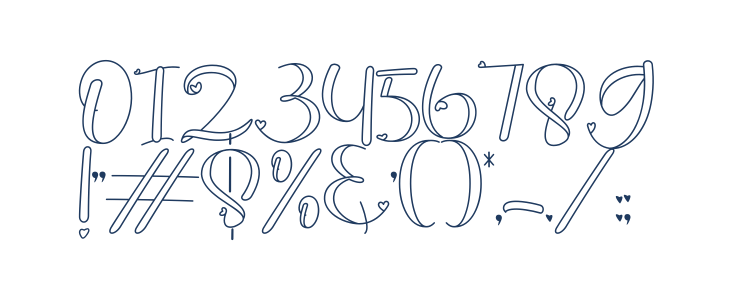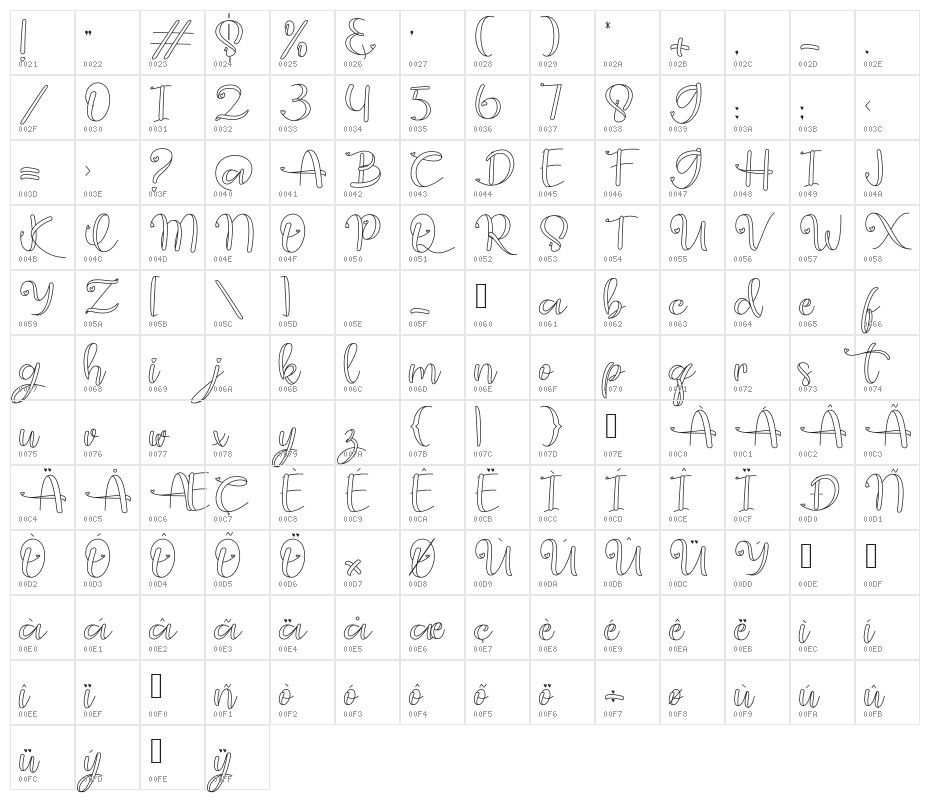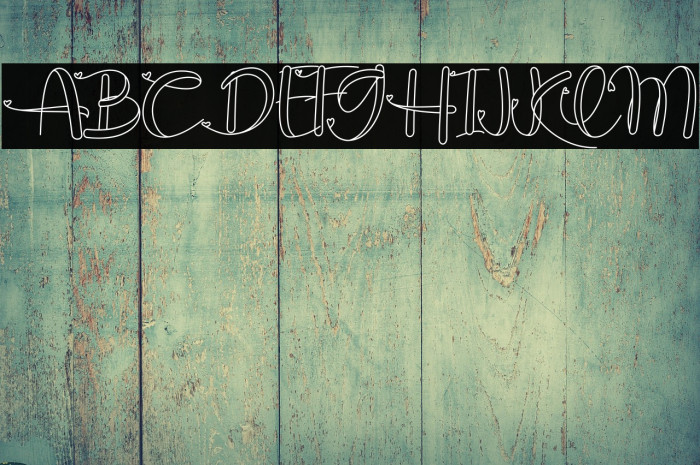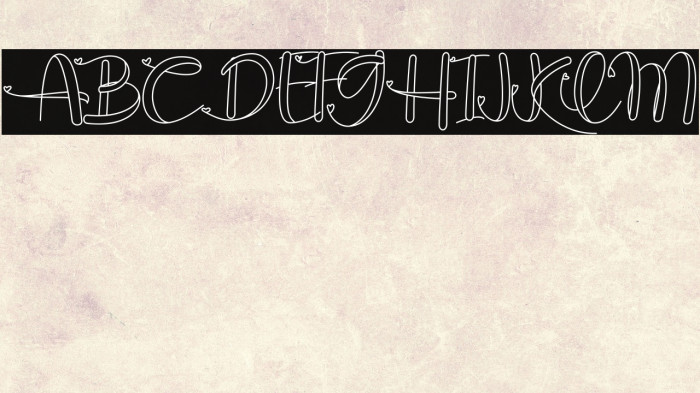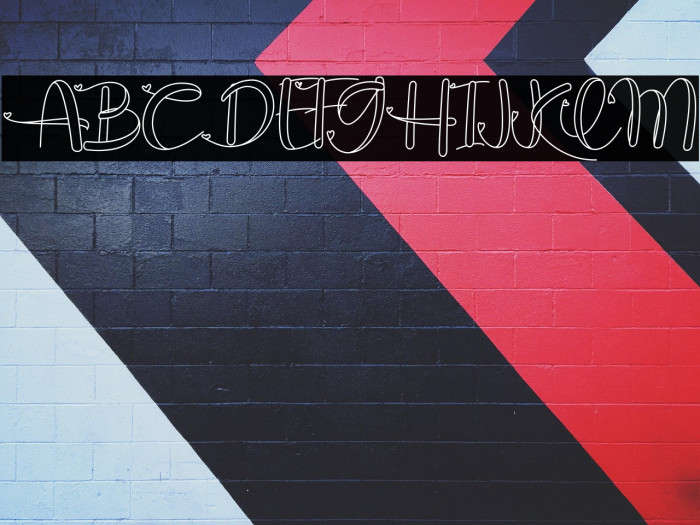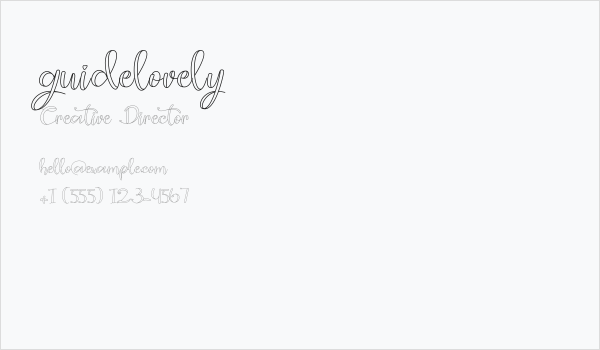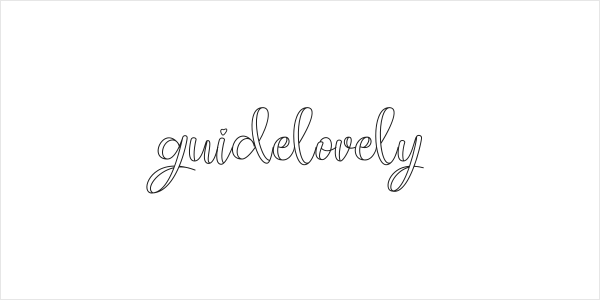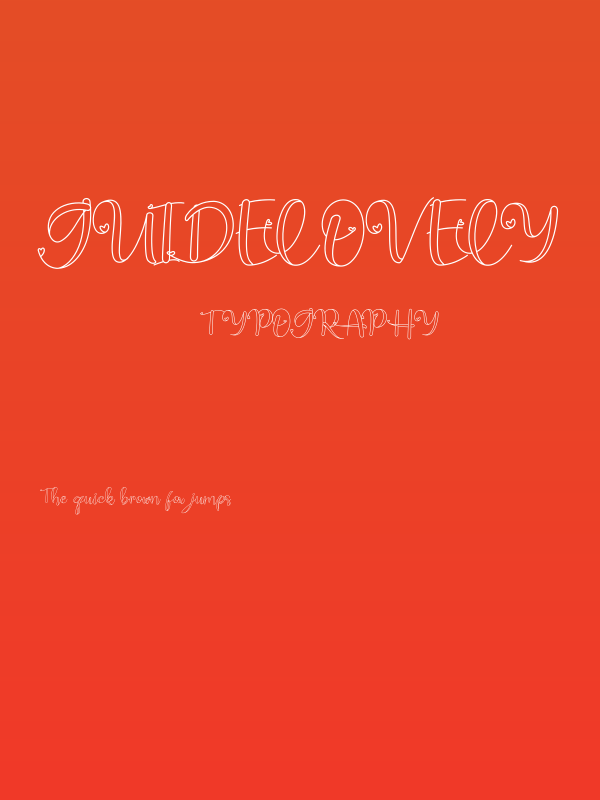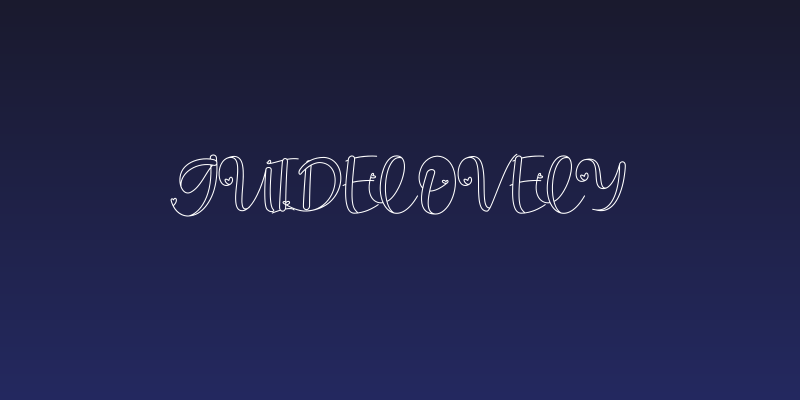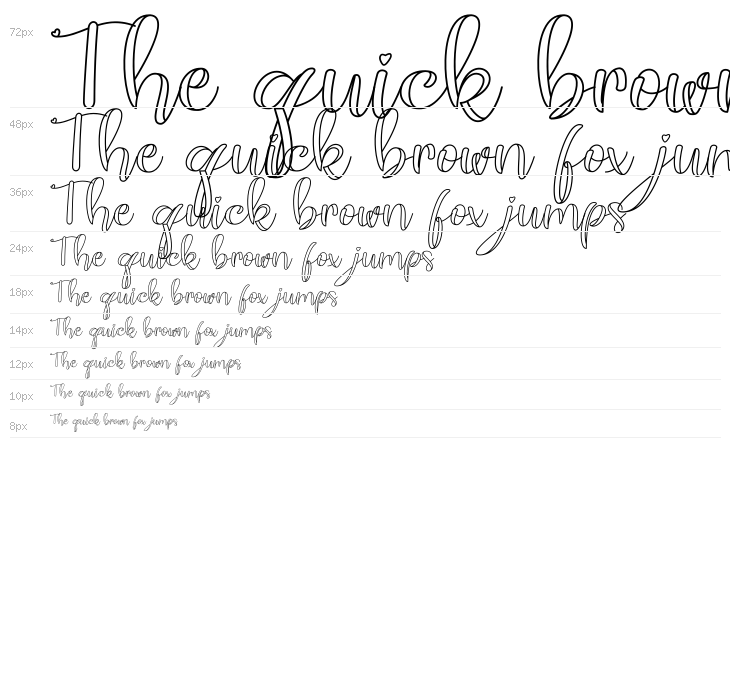
guidelovely Font
guidelovely Description
This font features a whimsical and romantic design, characterized by its flowing script and decorative heart accents integrated into the letterforms. The uppercase and lowercase letters exhibit a playful, cursive style with loops and swirls that add a sense of elegance and charm. The numbers and special characters maintain this cohesive aesthetic, making it suitable for projects that require a touch of romance or creativity. The overall appearance is light and airy, with a consistent stroke width that enhances readability while maintaining its decorative nature.